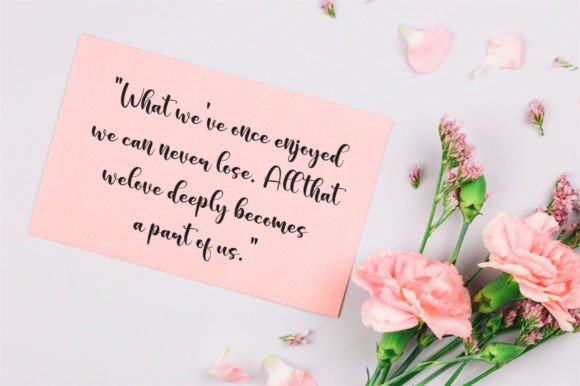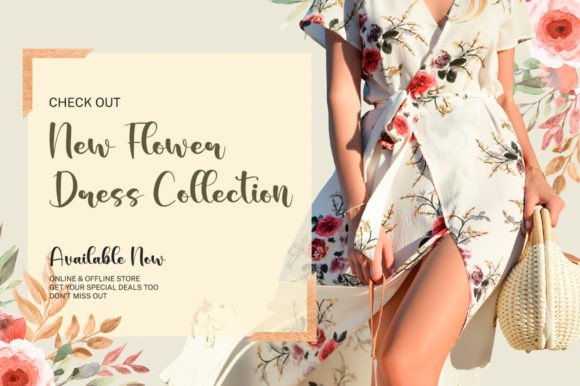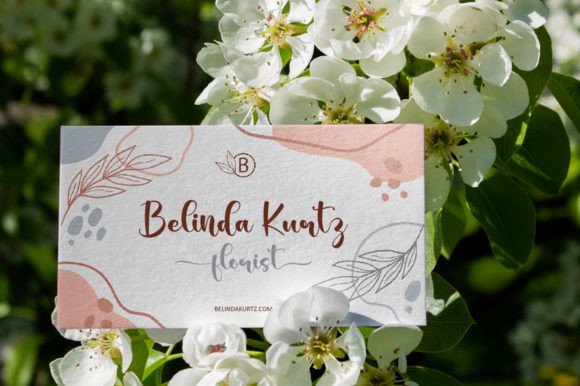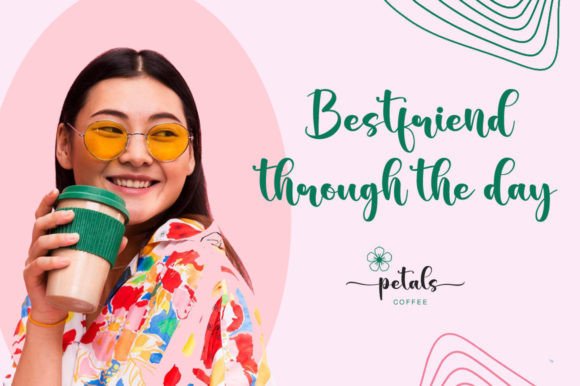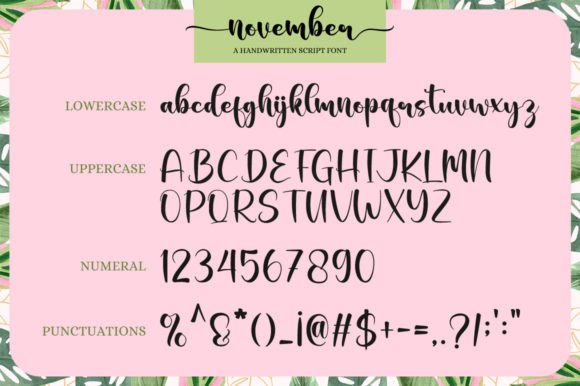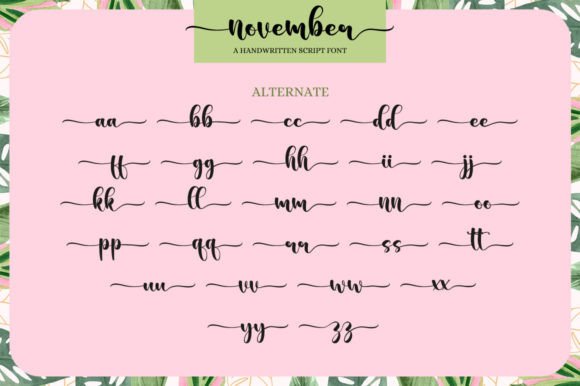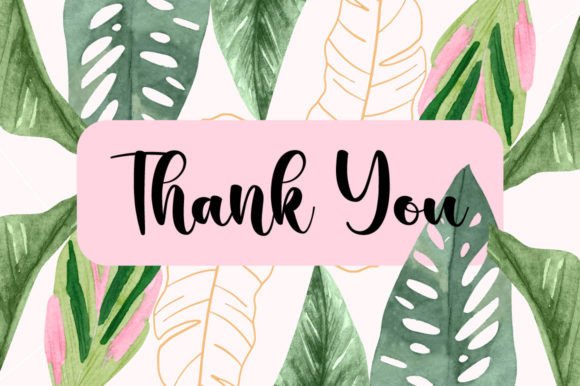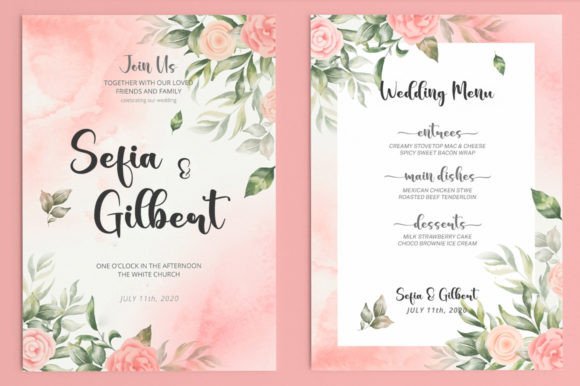
November Font
About November Font
November is a lovely and timeless handwritten font. It is the best choice for creating eye-catching logos, branding, and quotes. November is PUA-encoded, which means you can access all of the glyphs and swashes with ease!